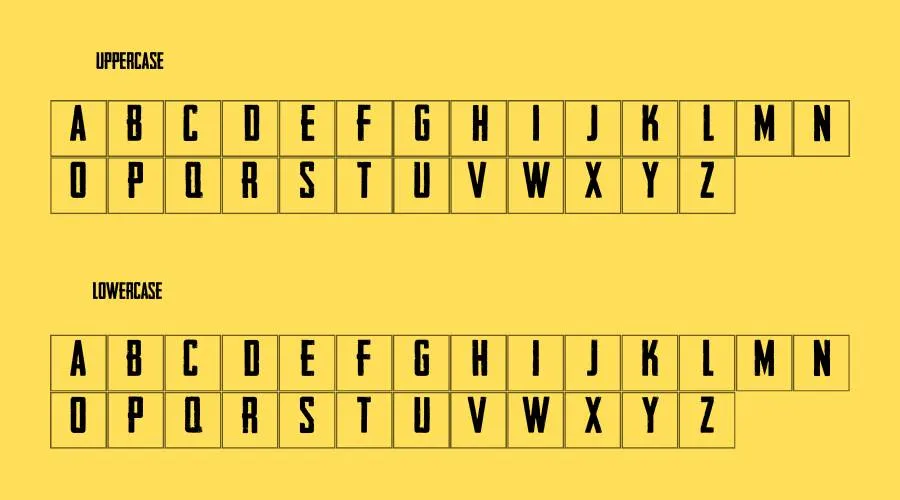
About PUBG Font
PUBG Font It is a popular font with fantastic style and a distinctive look. This font was well-liked by many talented designers who used it in a variety of wonderful projects. Kcfonts designed this famous style.